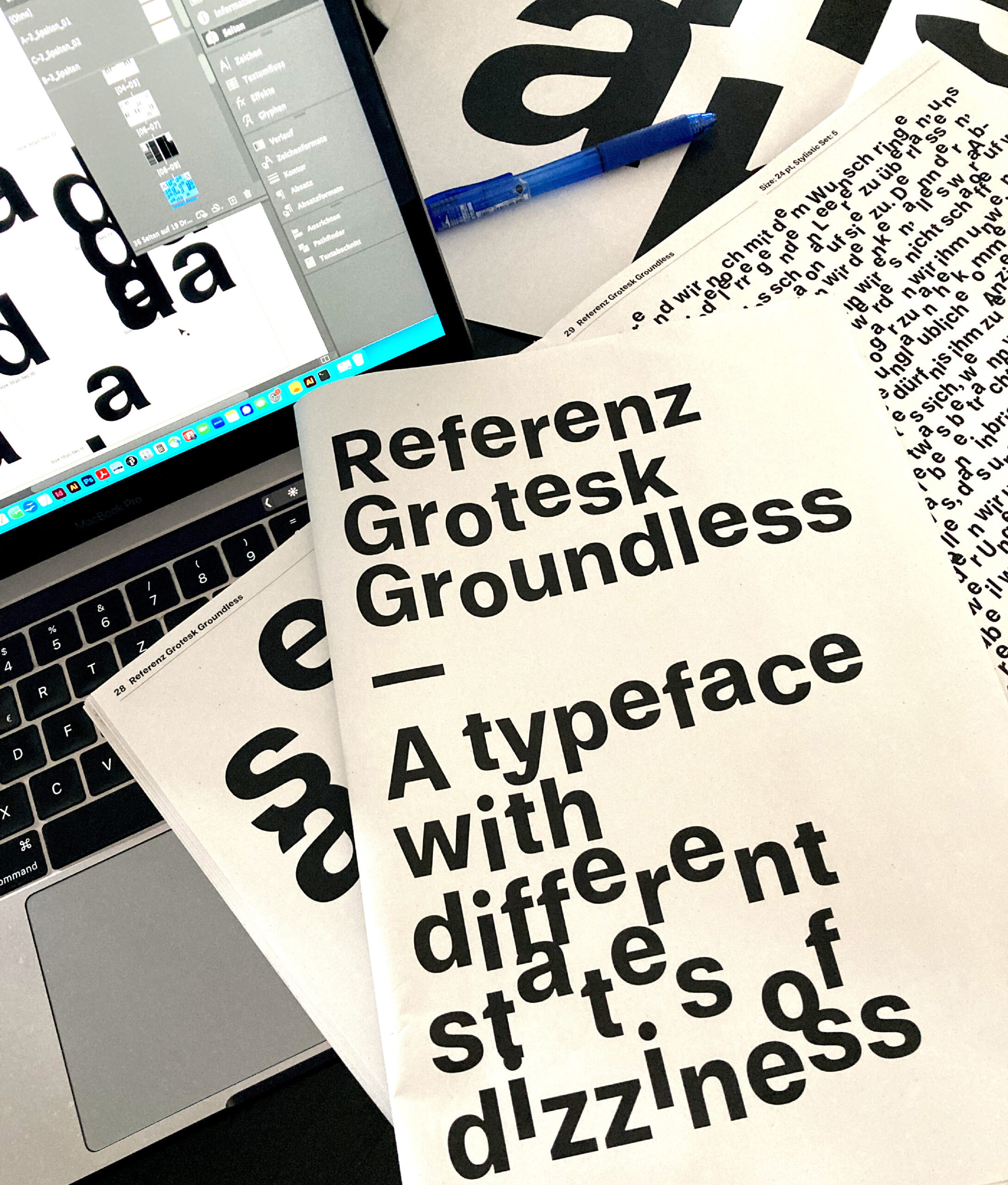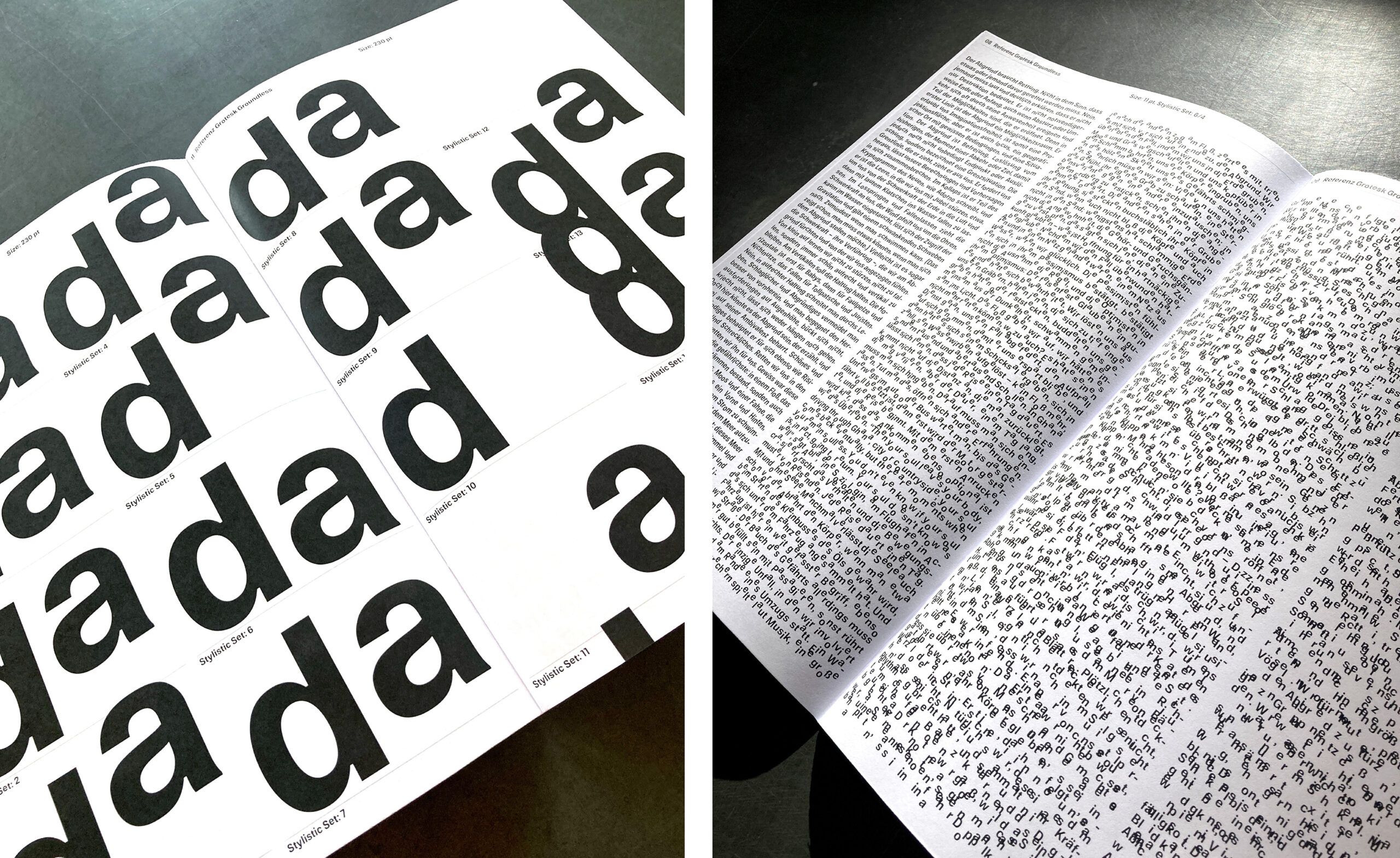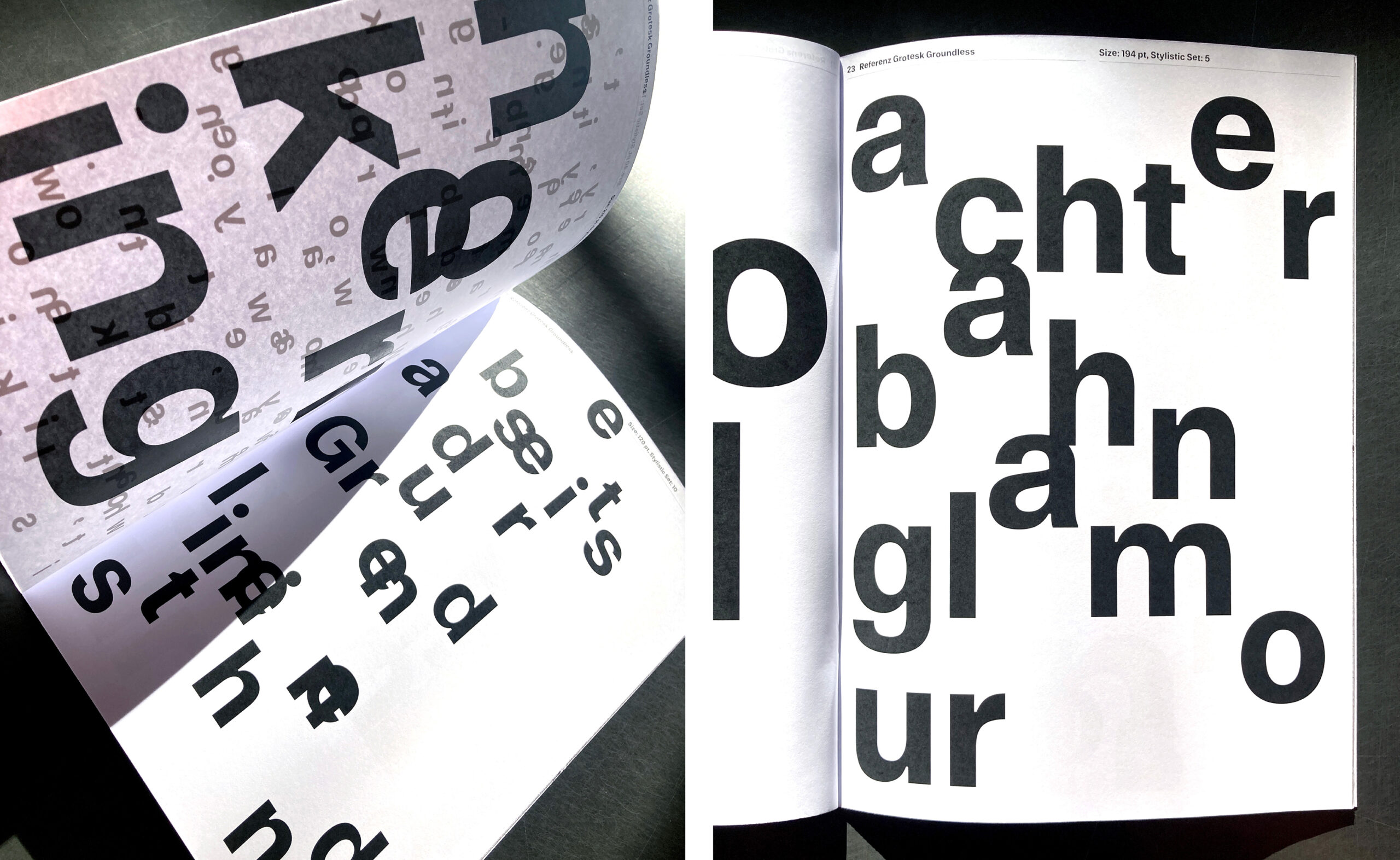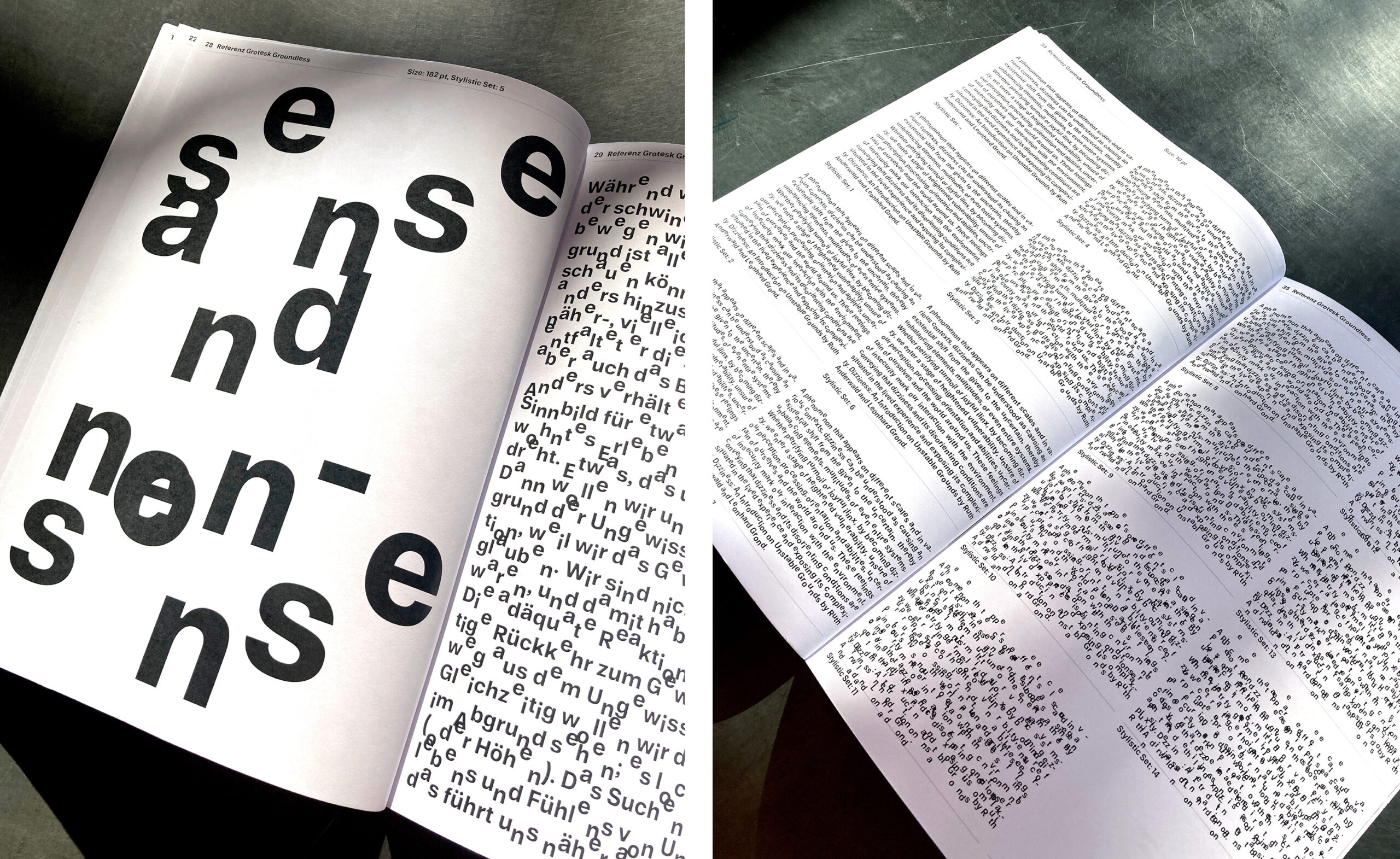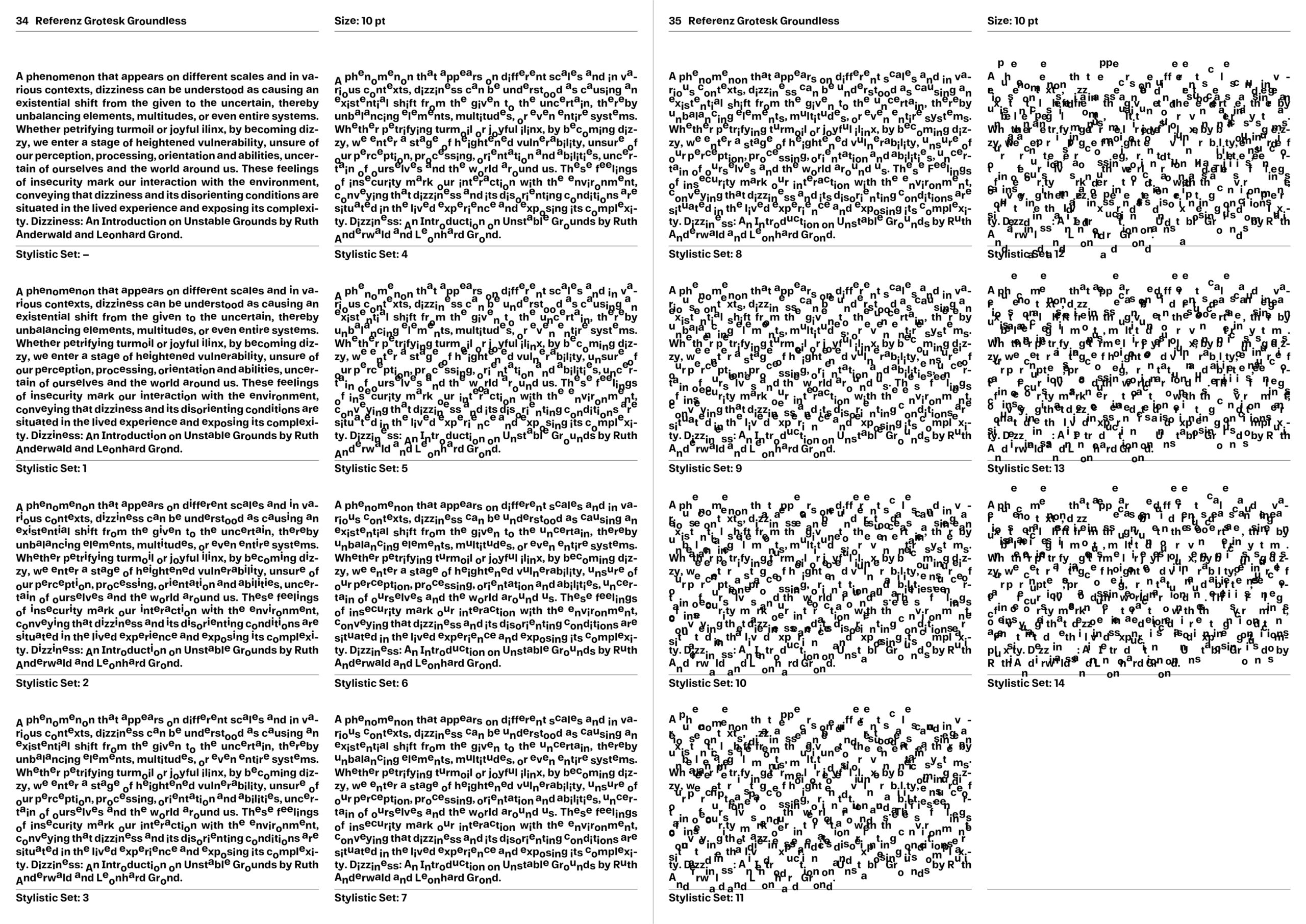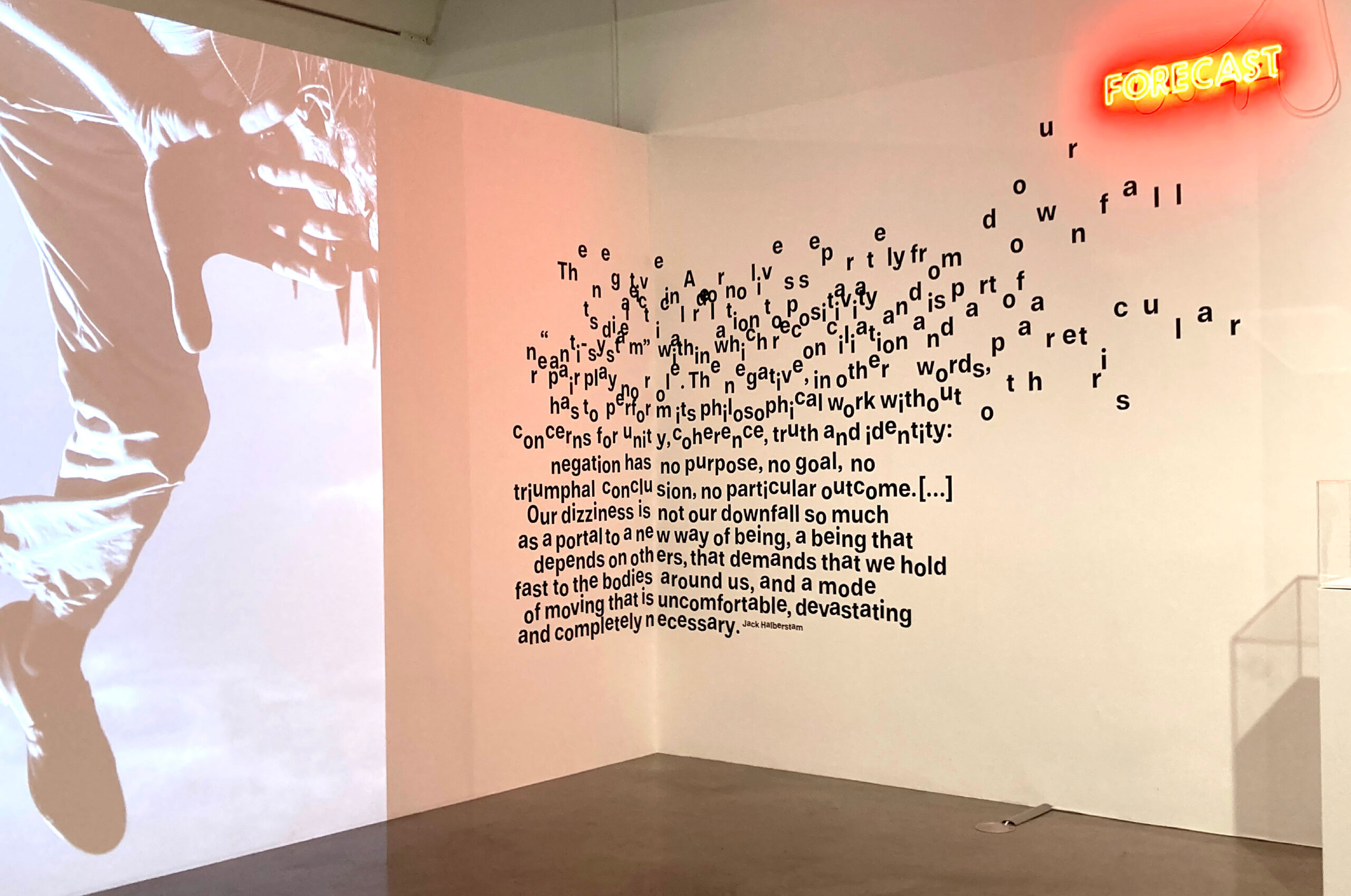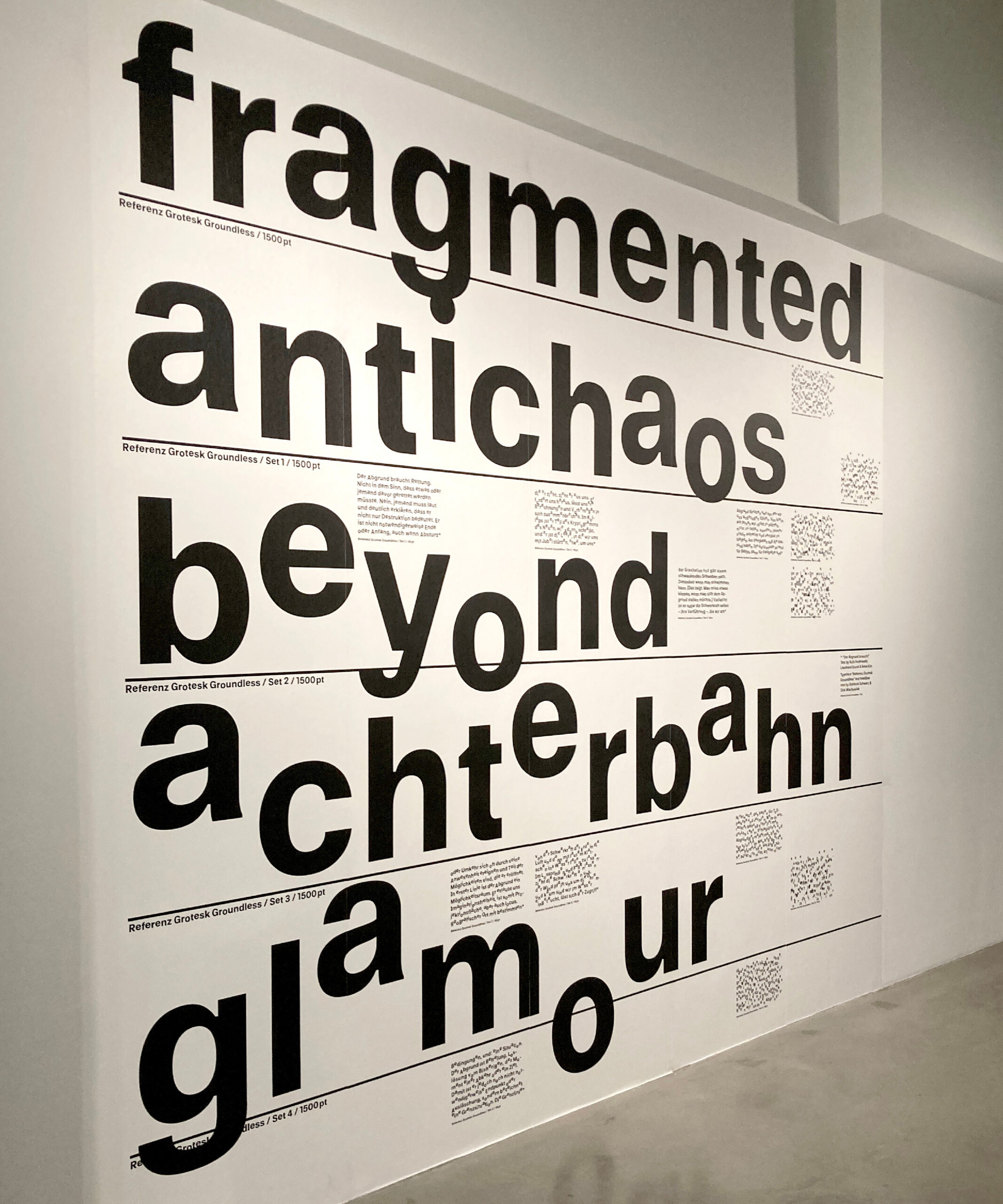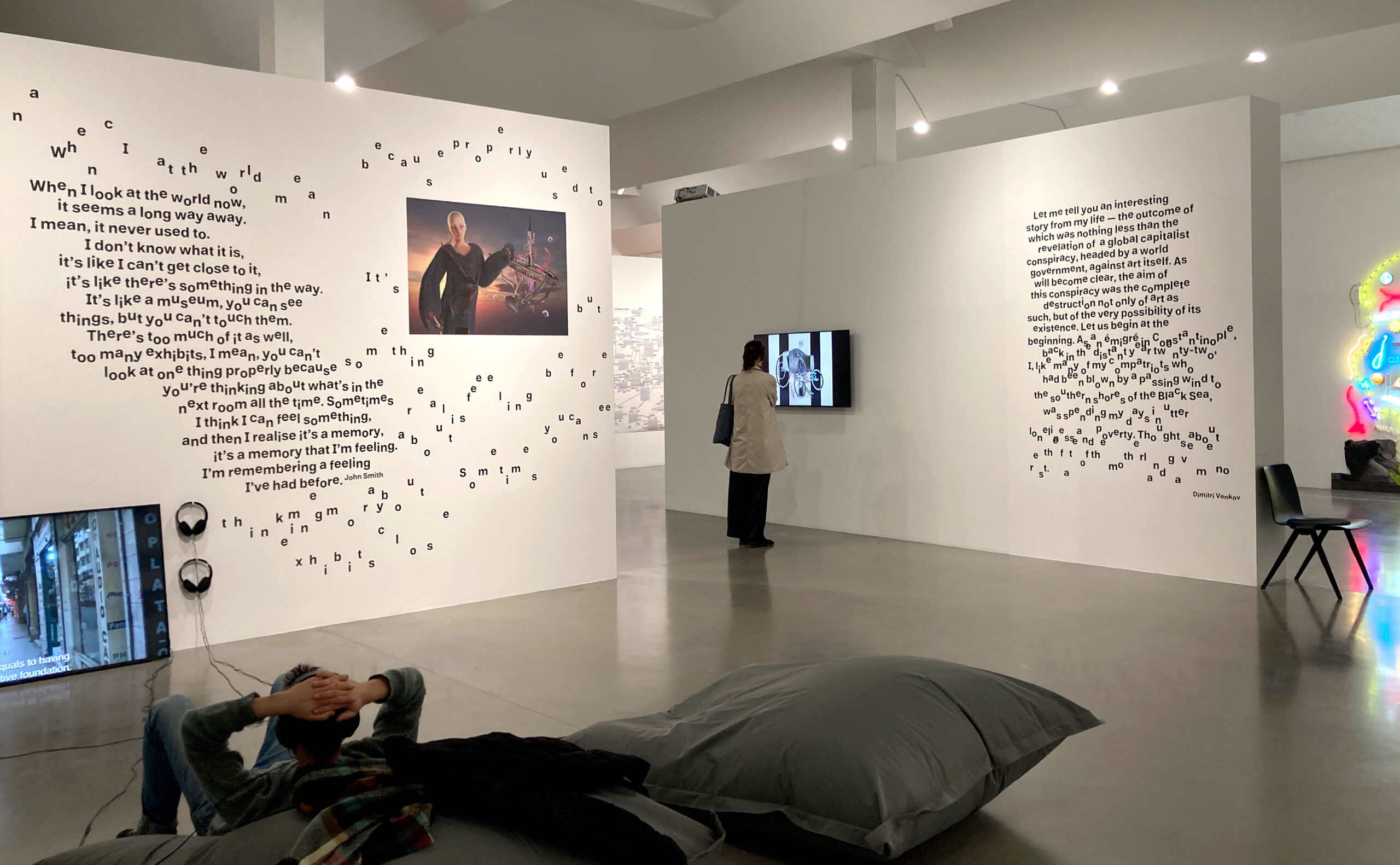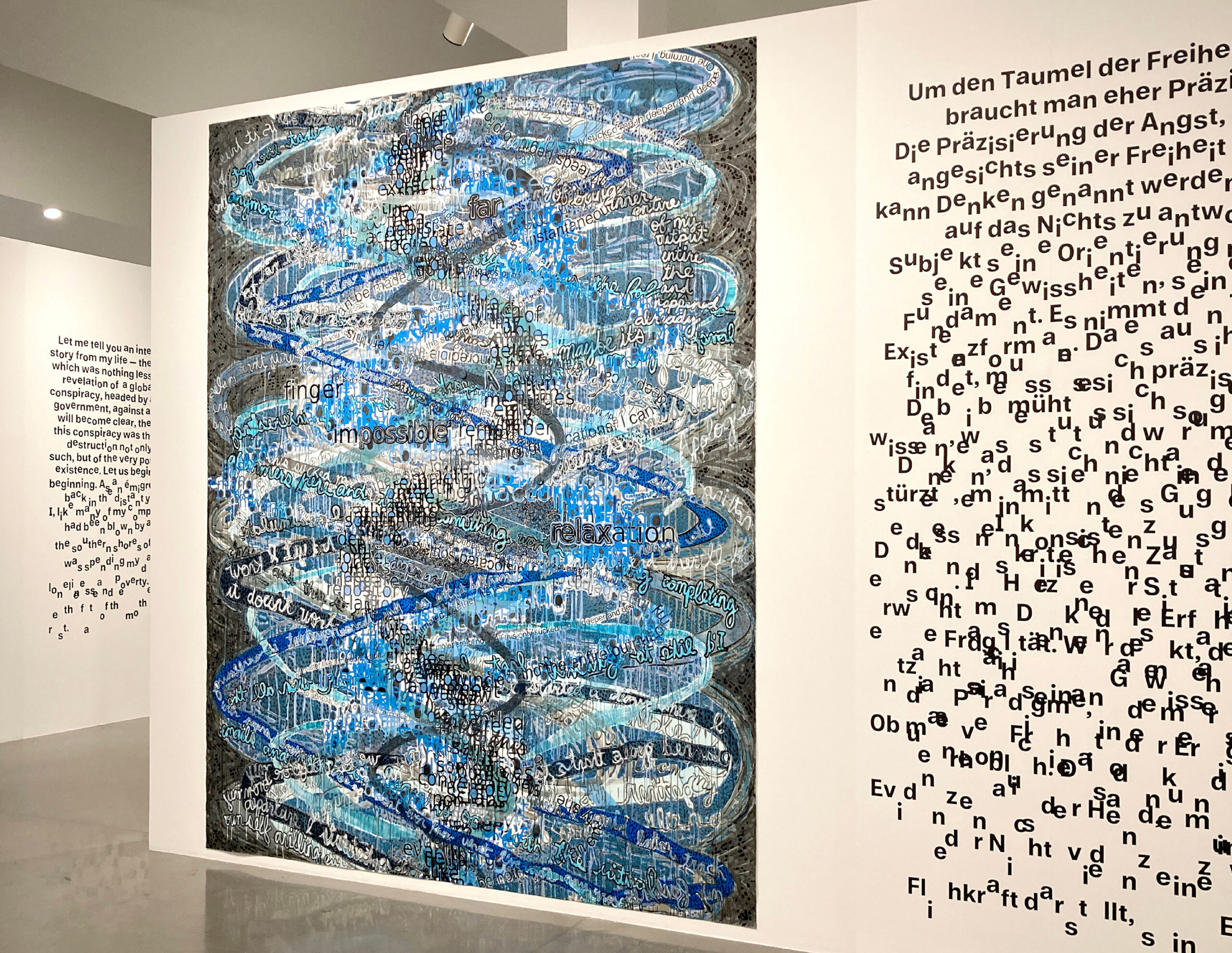
Groundless Grotesk
Referenz Grotesk Groundless has been designed for the research and exhibition project “Iliggocene – The Age of Dizziness”. In the beginning we have been asking how dizziness can be translated to the field of typography and type design. Can a typeface make us dizzy and provoke a feeling of disorientation by interfering with the reading flow? By spinning, slanting and shifting letterforms to different extents, we have been testing various types of disruptions. Finally we’ve decided for a simple but quite effective method: the baseline shift. By doing so we’ve created a type system with different states of dizziness via letters that shift from their baseline at different levels.
The new font is based on our type family Referenz Grotesk and now expanded by a dizzying extension, with 15 grades of dizziness, including 140 dizzy characters. Referenz Grotesk Groundless transforms – gradually or at once – readable text to an unreadable typographic structure, challenges readers that find themselves between dis- and reorientation. (Stefanie Schwarz & Dirk Wachowiak, 2026)
Iliggocene – The Age of Dizziness
22 March – 26 July 2026
Kindl – Zentrum für zeitgenössische Kunst, Berlin
type & typographic design by Stefanie Schwarz & Dirk Wachowiak